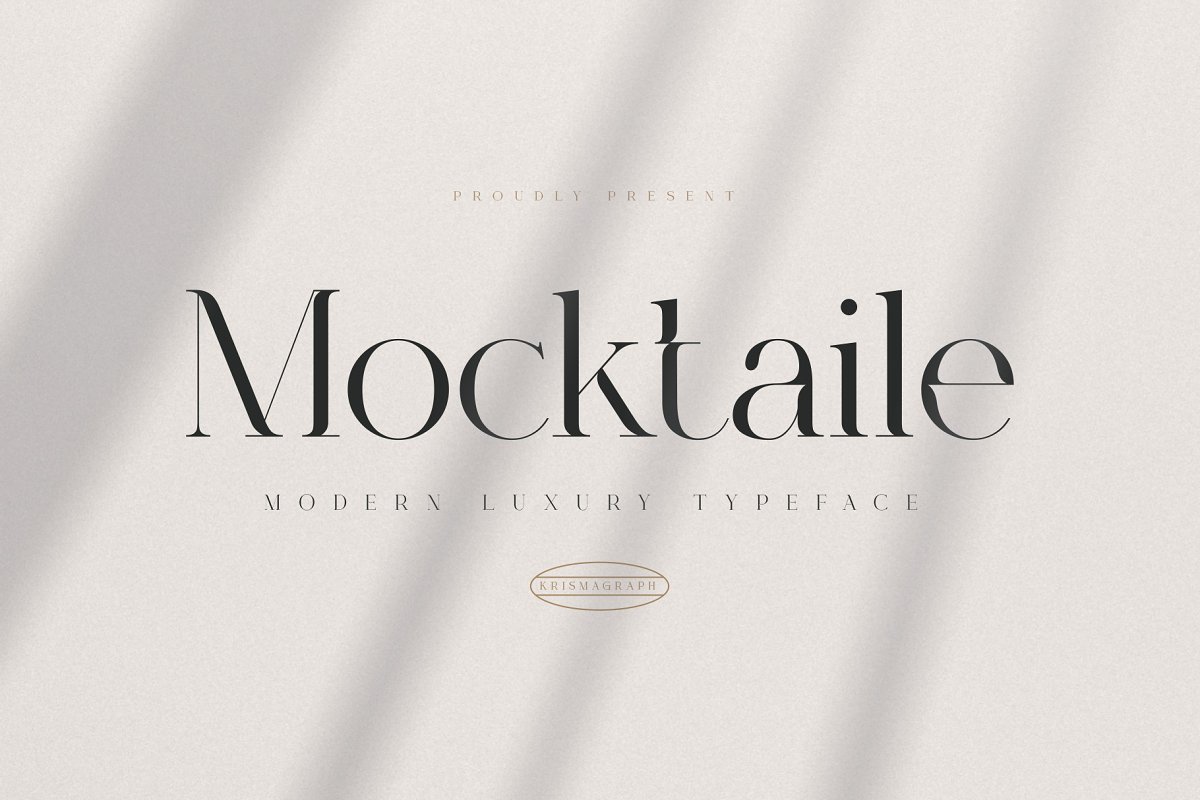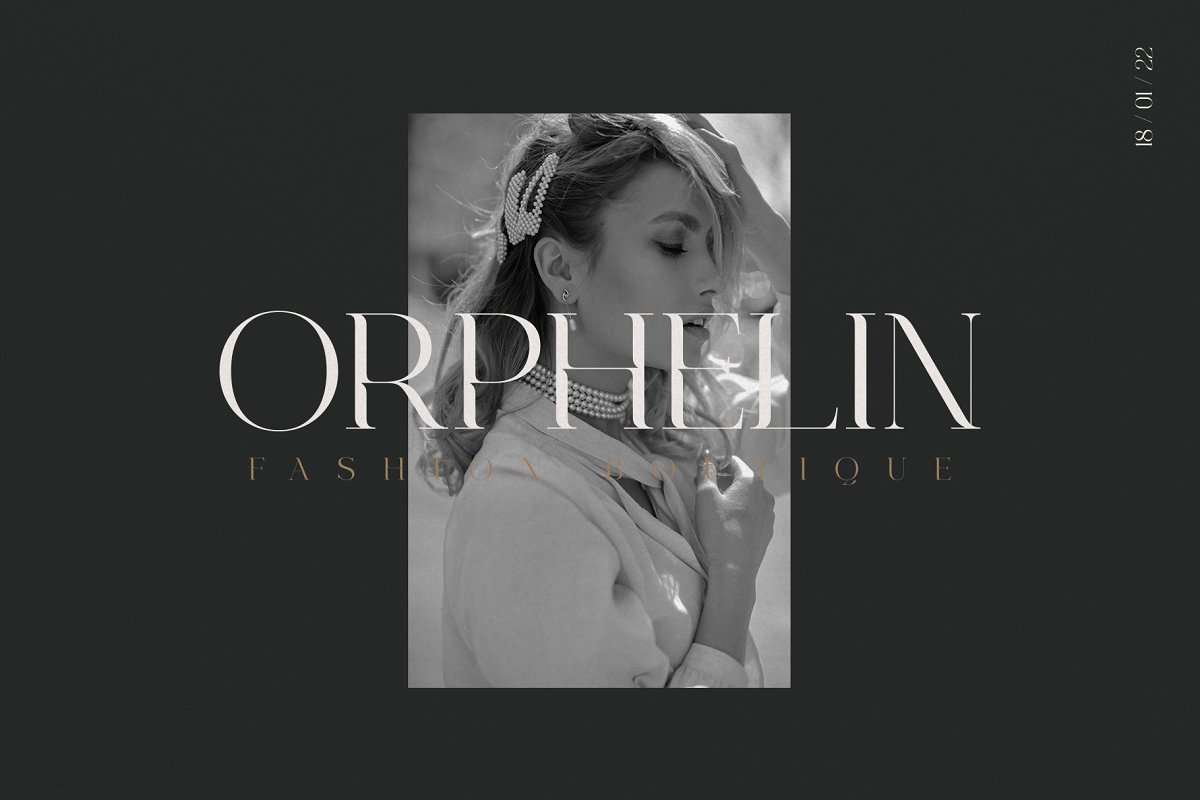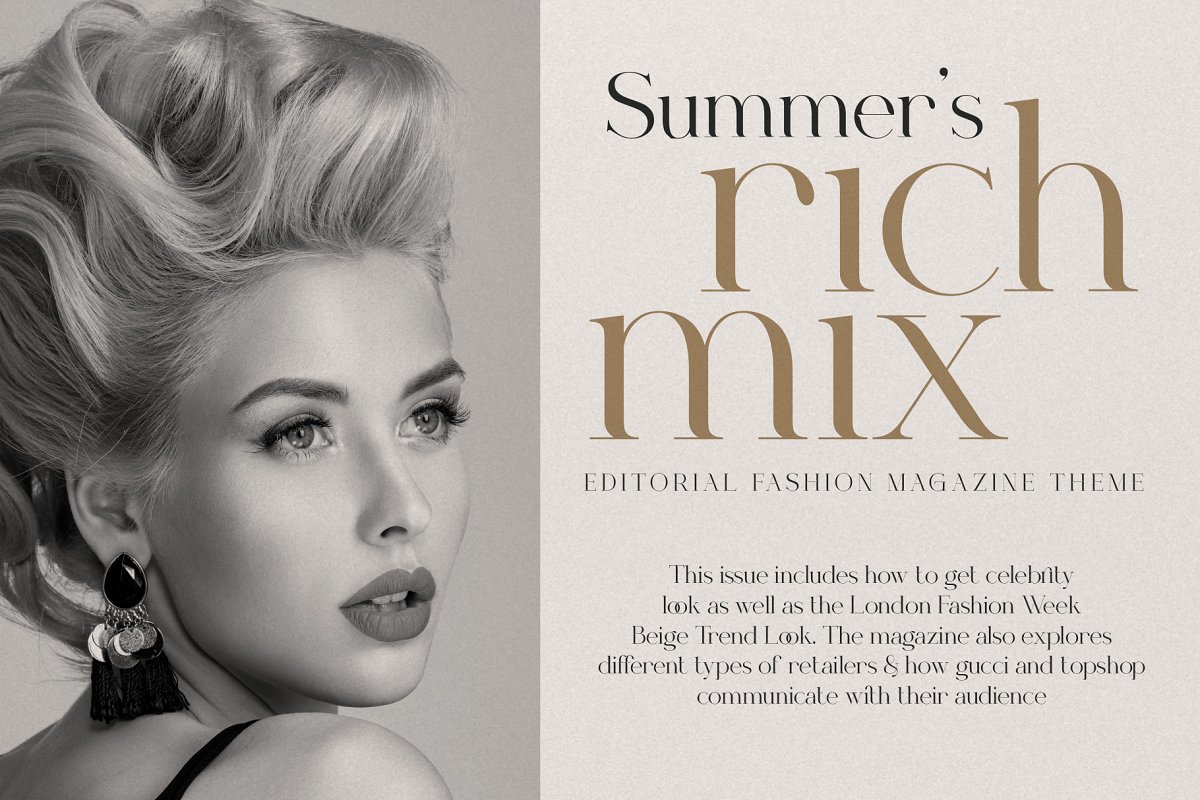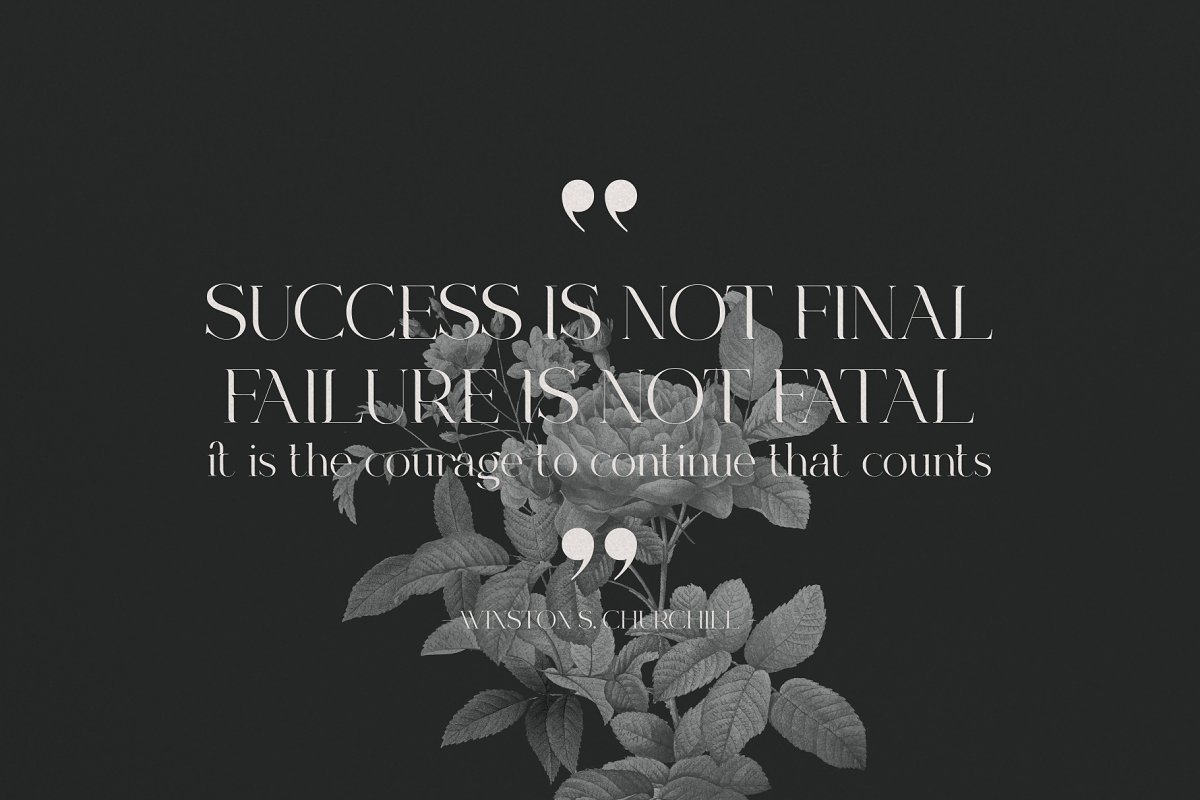
About the Mocktaile Modern Luxury Typeface Font
Mocktaile Typeface is a modern & luxury serif , It’s soft curves mixed with high contrast glyphs lend it self to both feminine qualities, Great in layout design for quotes or body copy, and will be unique to the use of the fashion typography, logo design, And also multilingual support, Will you get :Mocktaile Typeface OTFMocktaile Typeface TTFMocktaile Typeface WOFFFeel free to follow, like and share